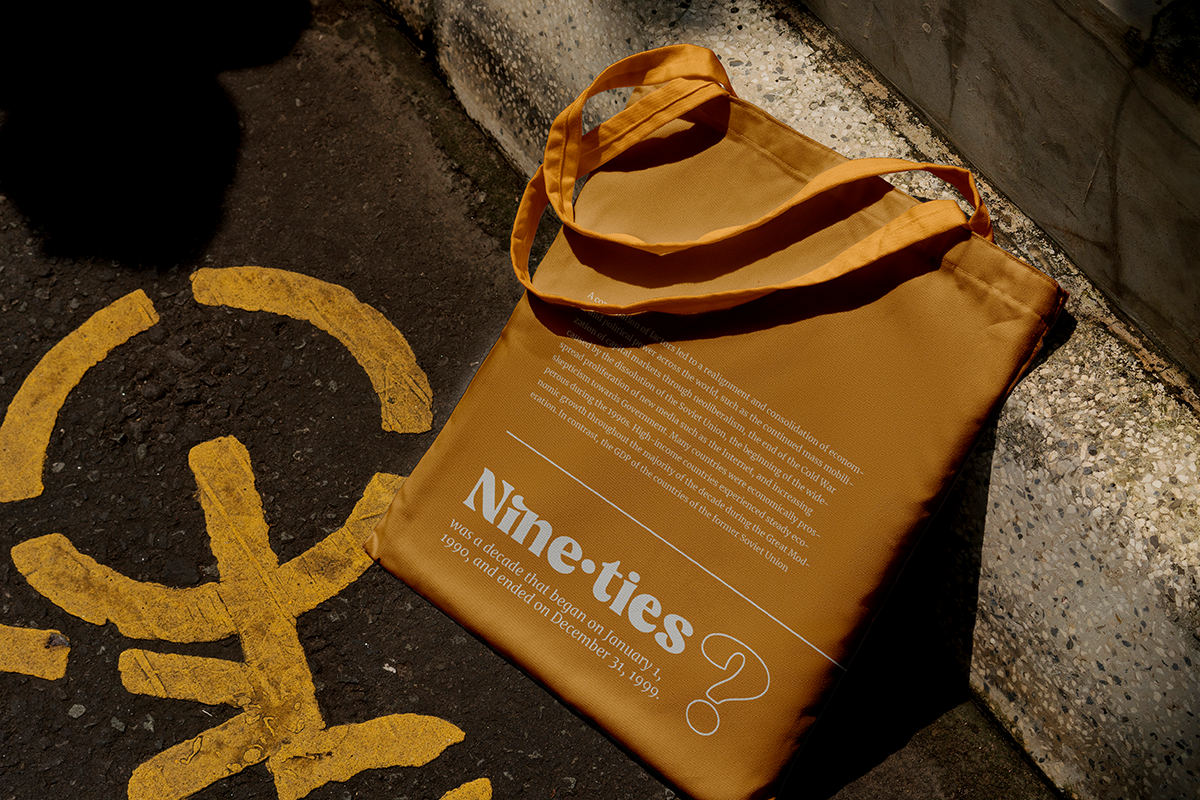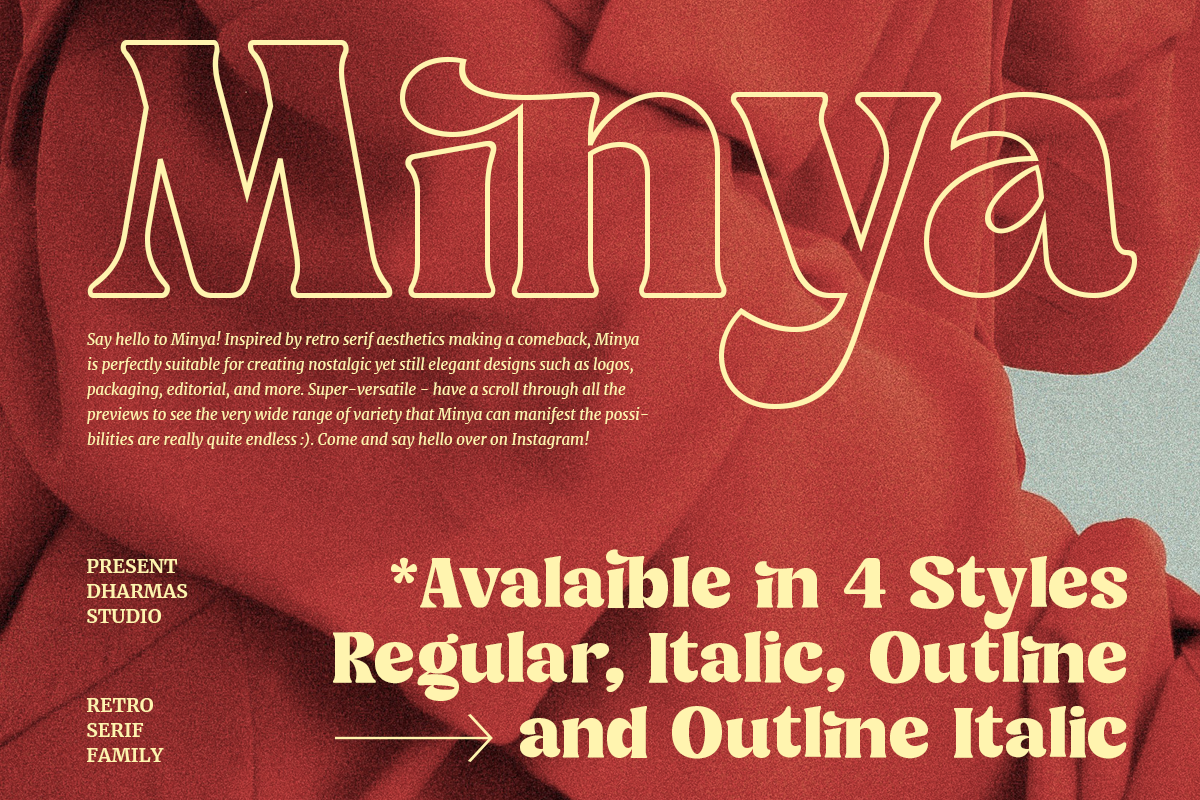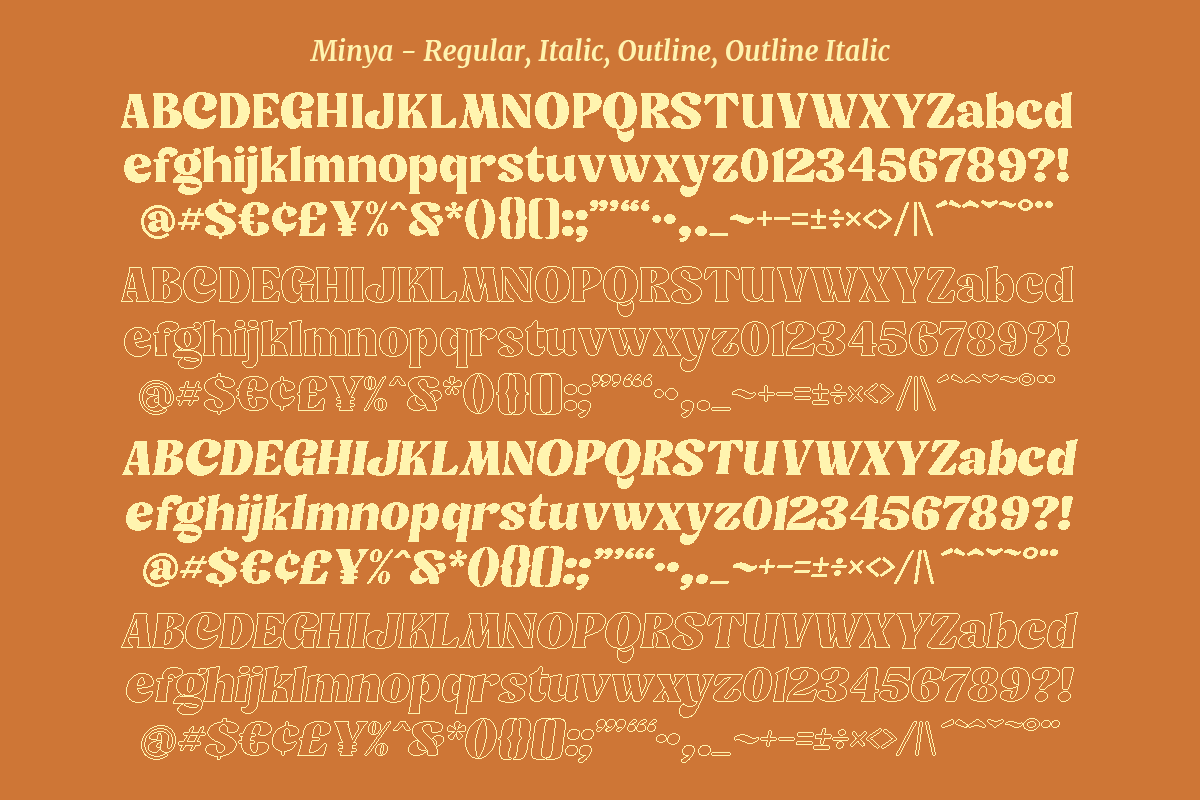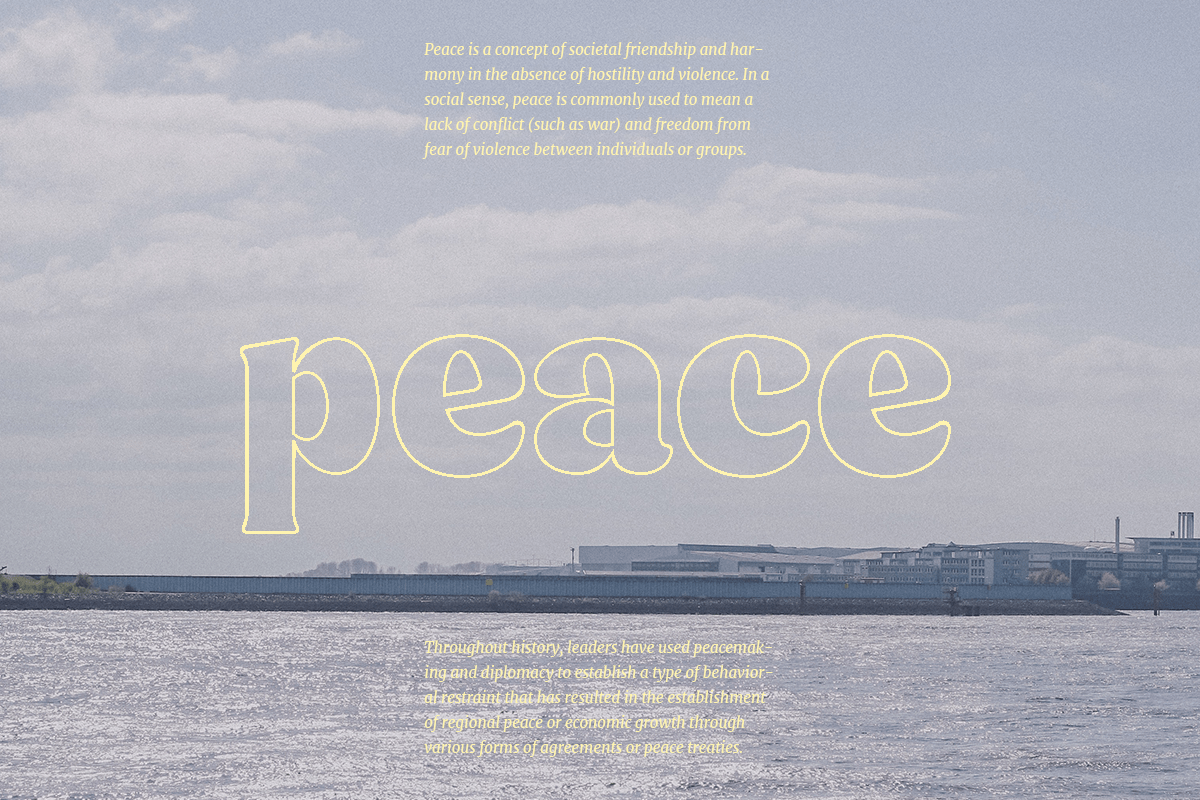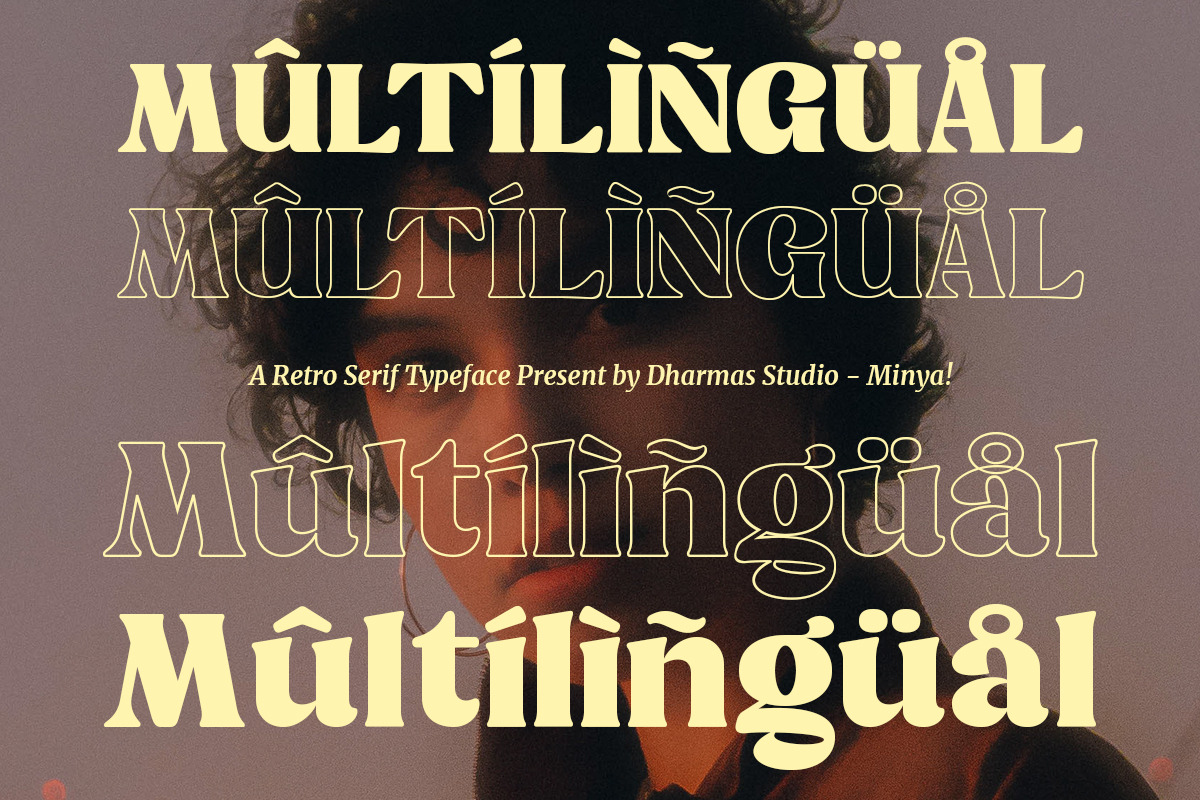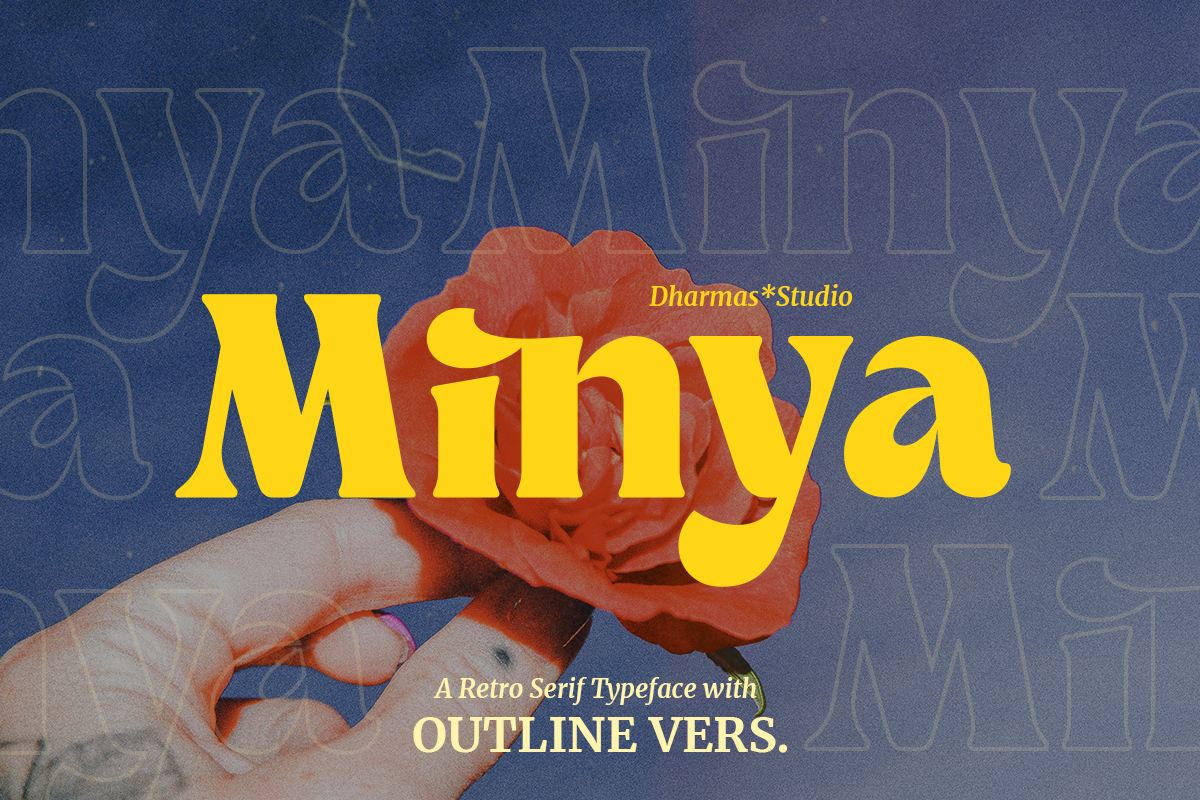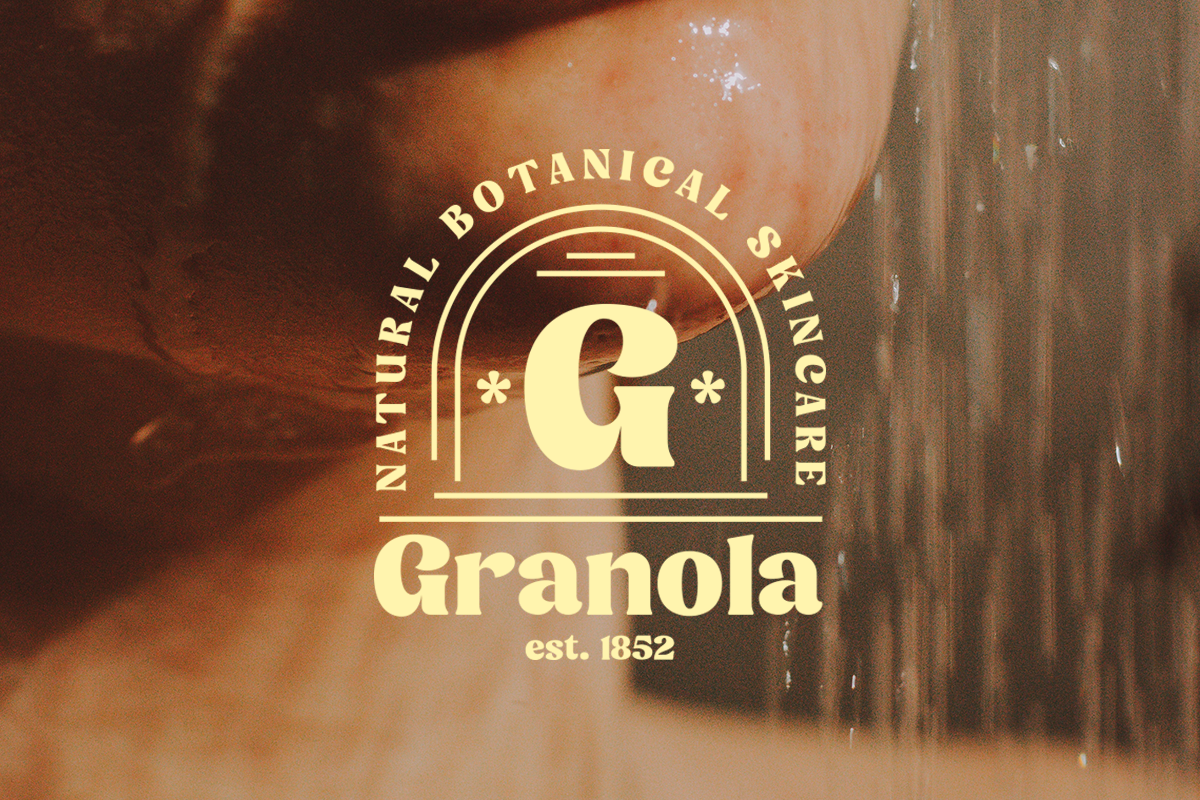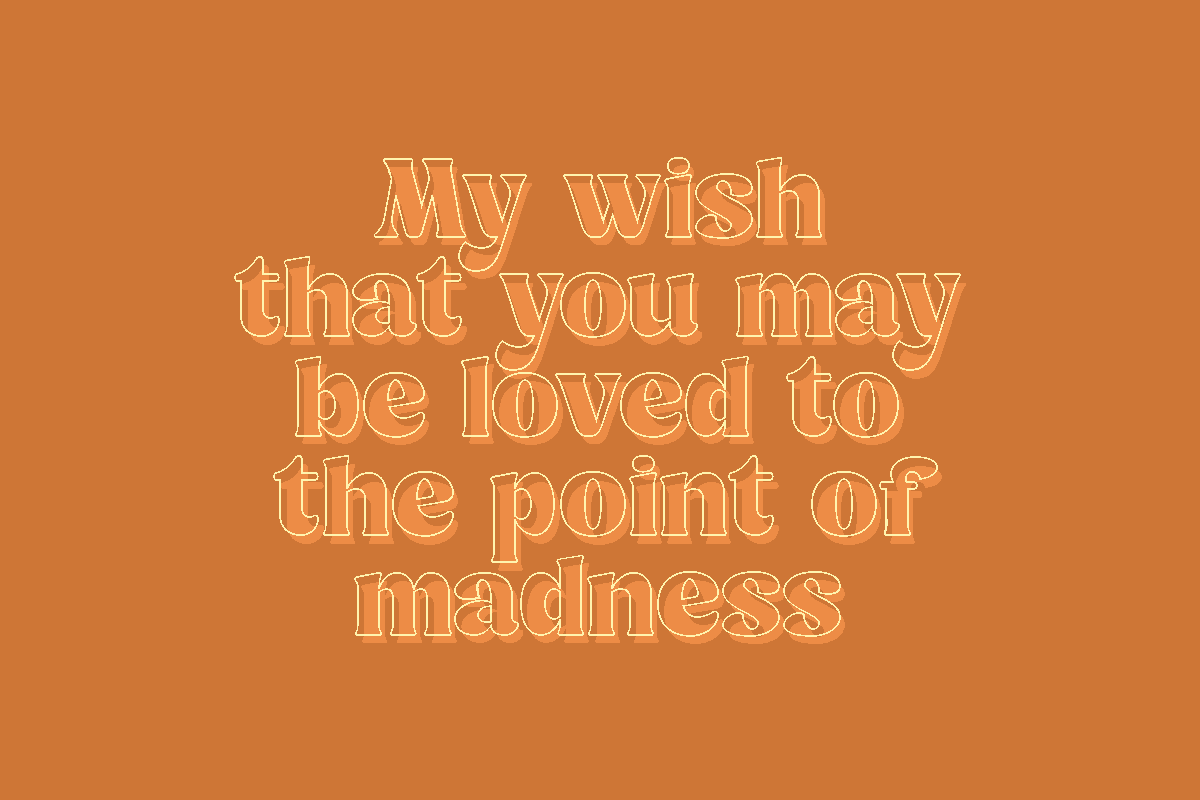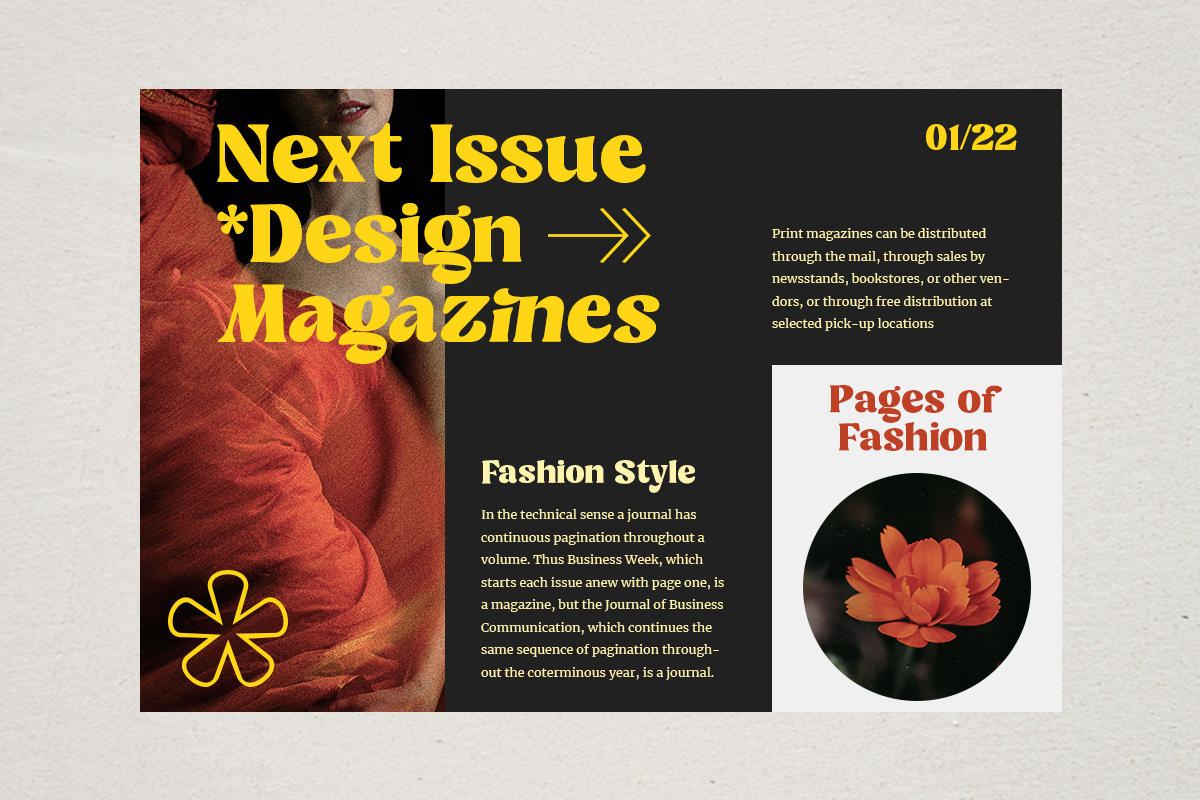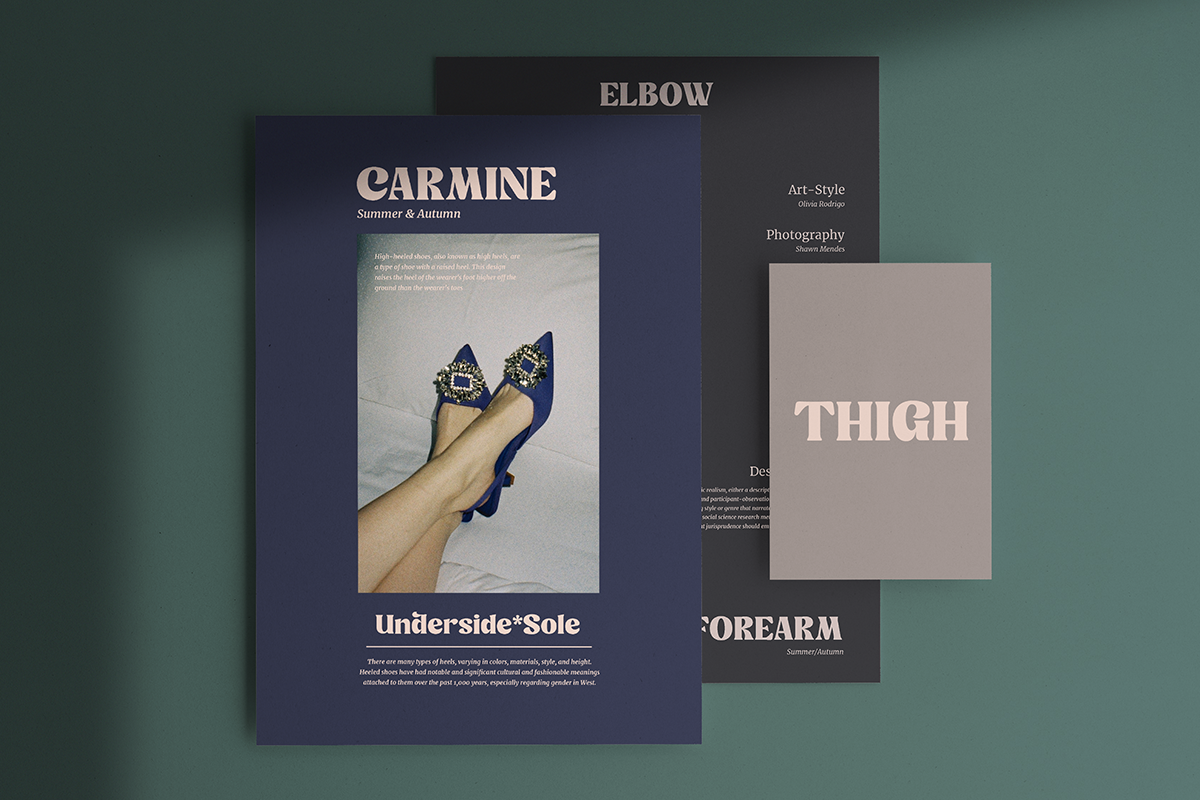
Minya - Retro Font (Outline Version)
Minya is a retro serif font created for vintage branding, logo design, product packaging, editorial layouts, book covers, café branding, and premium merchandise. Designed for logos, labels, magazine headlines, invitations, and marketing materials, Minya brings a nostalgic yet refined visual identity to both print and digital projects. Inspired by timeless serif typography, the overall look feels classic, elegant, and memorable.
Minya Font Features:
4 Styles: Regular, Italic, Outline, Outline Italic
29+ Stylistic Alternates and Ligatures
Letters, numbers, symbols, punctuation, special alternates
Multilingual Characters available for:
Afrikaans, Albanian, Asu, Basque, Bemba, Bena, Breton, Chiga, Cornish, Dutch, English, Estonian, Filipino, Finnish, Friulian, Galician, German, Gusii, Indonesian, Irish, Italian, Kabuverdianu, Kalenjin, Kinyarwanda, Luo, Luxembourgish, Luyia, Machame, Makhuwa-Meetto, Makonde, Malagasy, Manx, Morisyen, North Ndebele, Nyankole, Oromo, Portuguese, Quechua, Romansh, Rombo, Rundi, Rwa, Samburu, Sango, Sangu, Scottish Gaelic, Sena, Shambala, Shona, Soga, Somali, Spanish, Swahili, Swedish, Swiss.